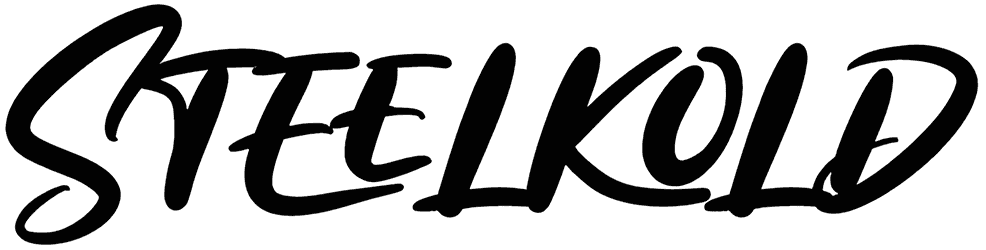
Steelkold Font
This time, let’s make your words show with an urban and artistic face. As a script font, Steelkold has a real mood and brush lettering form. There are no lowercase letters, numbers, or punctuation, but this handwritten font will be cool enough to promote your upcoming projects, like titles, flyers, covers, magazines, and other kinds of stuff.